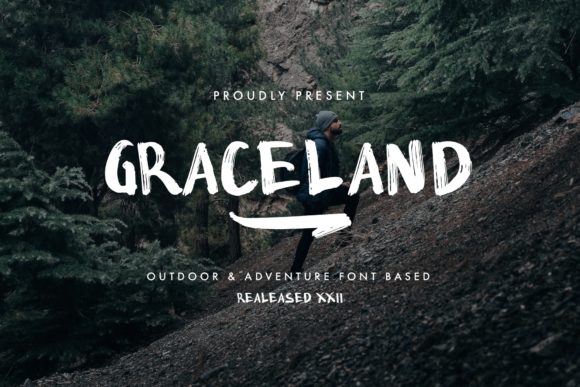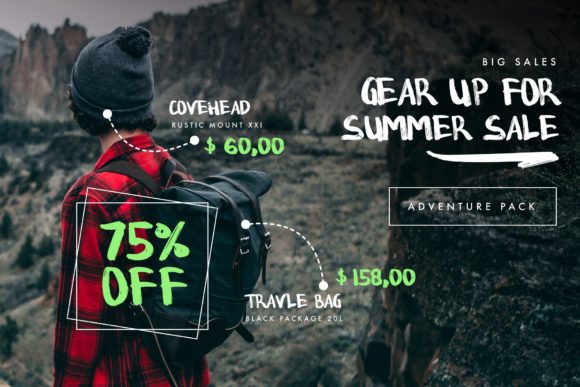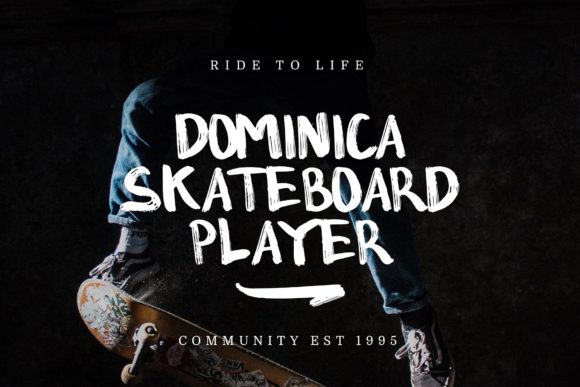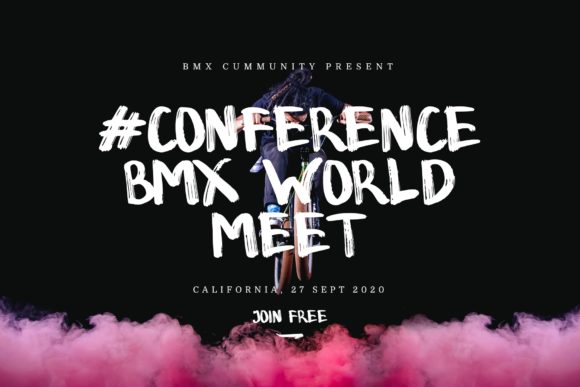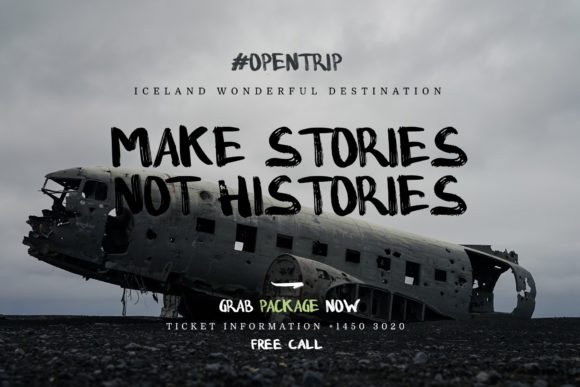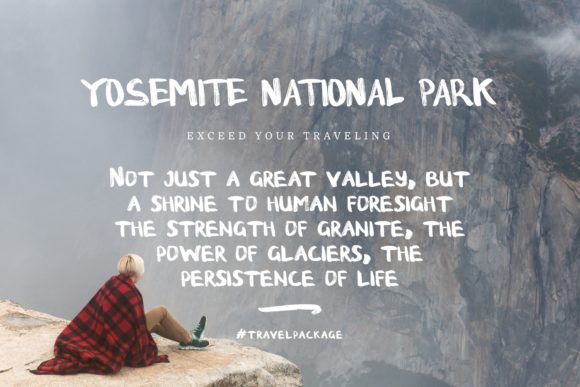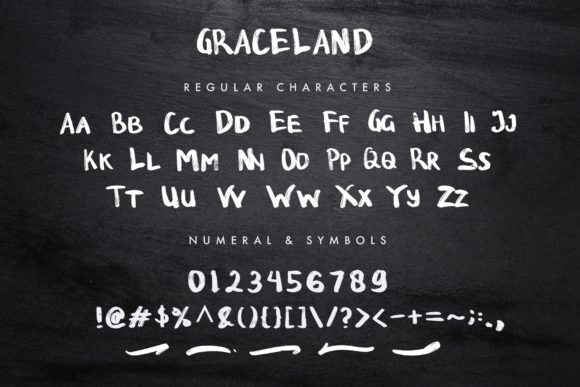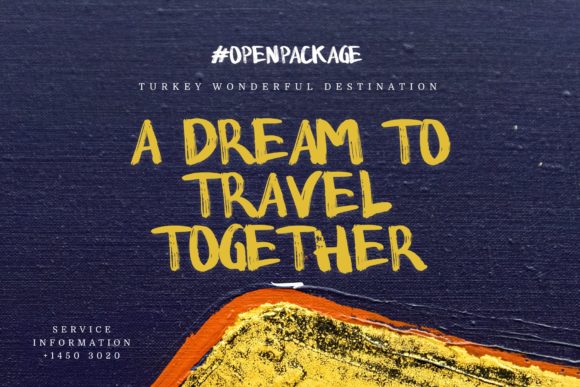
Graceland Font
About Graceland Font
Graceland is a handbrush font with a great personality. It will elevate a wide range of design projects to the highest level, be it branding, headings, wedding designs, invitations, signatures, logos, labels, and much more!